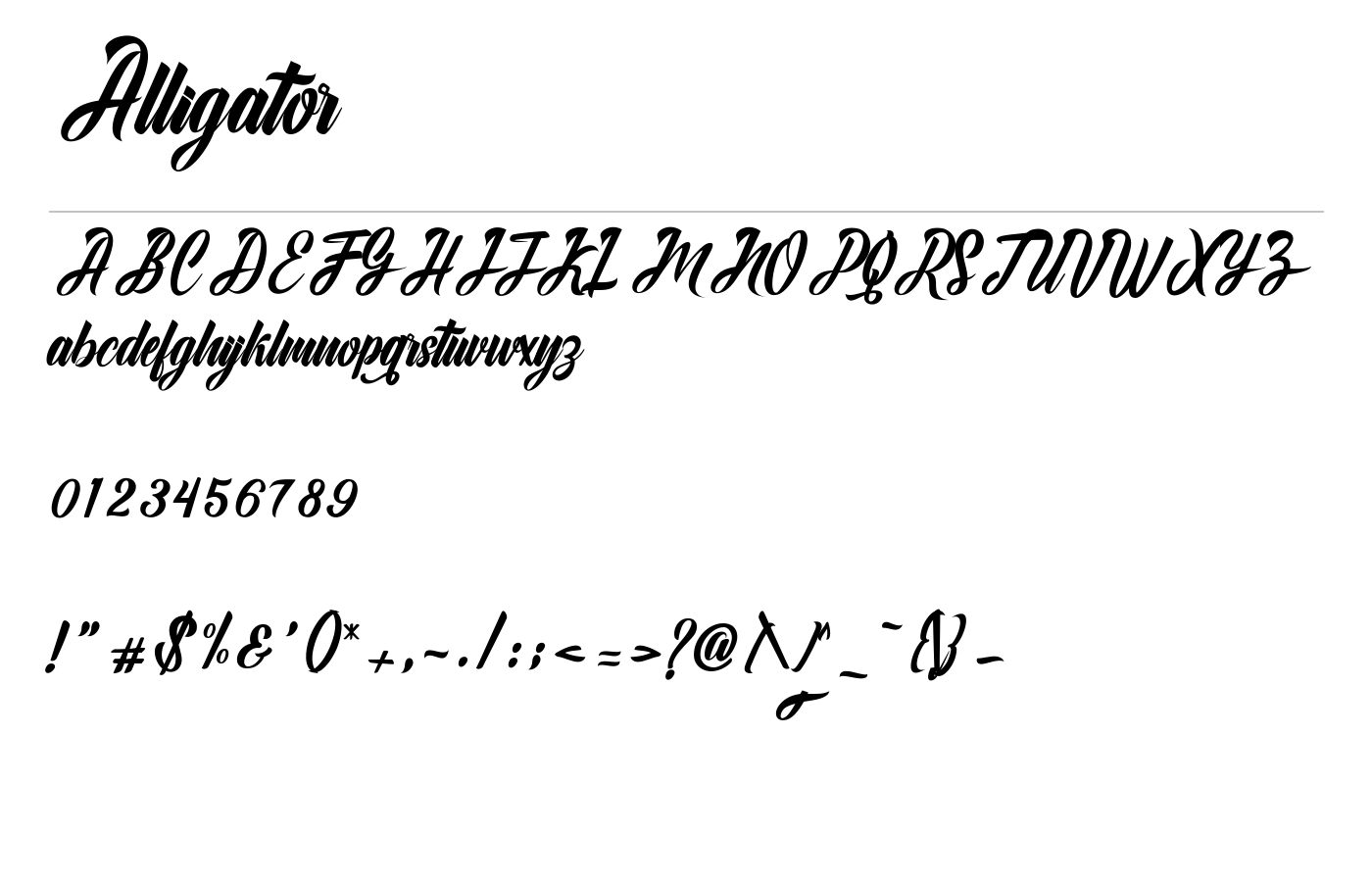
Alligator Font is a bold, script typeface with a lively and flowing style, featuring high contrast strokes and elegant, brush-like curves that evoke a handcrafted feel. Its tall, narrow letterforms and stylish uppercase capitals give it a confident, artistic personality, making it ideal for branding, logos, and headlines where a dynamic, eye-catching look is desired. This font works especially well in creative or fashion-related designs, adding a touch of sophistication and energy.
Alligator Font
About Alligator Font